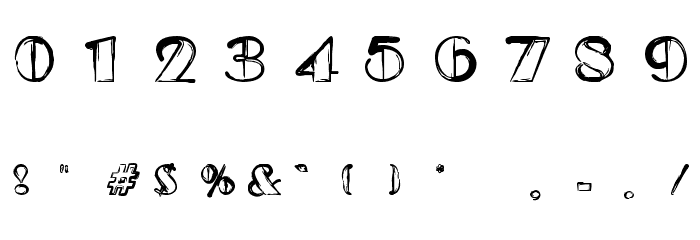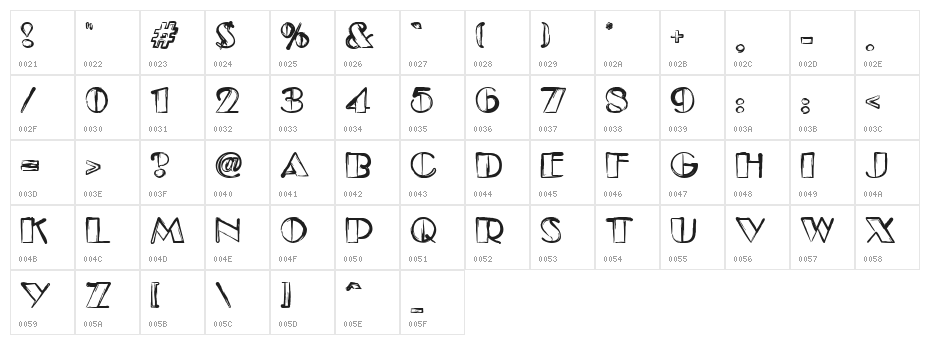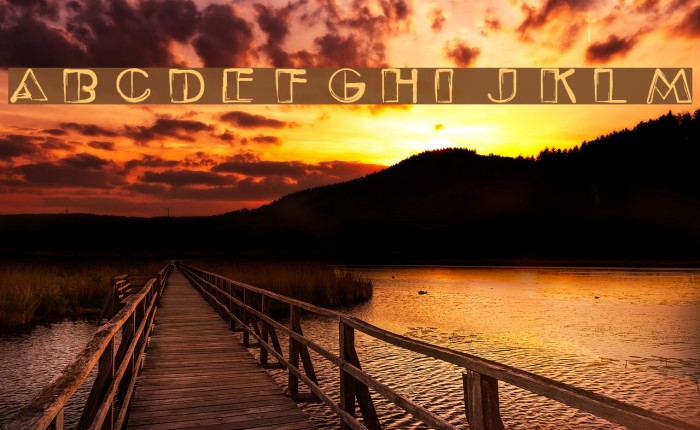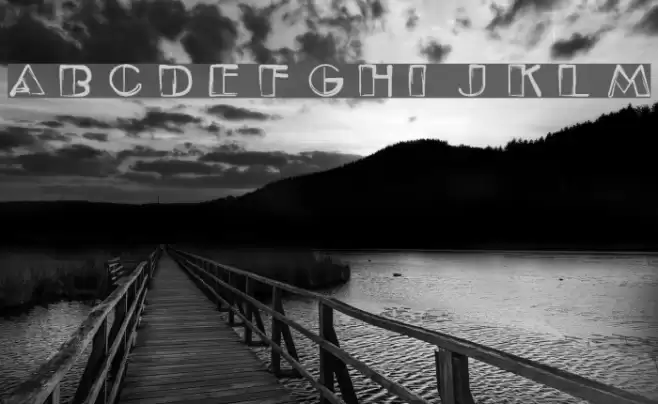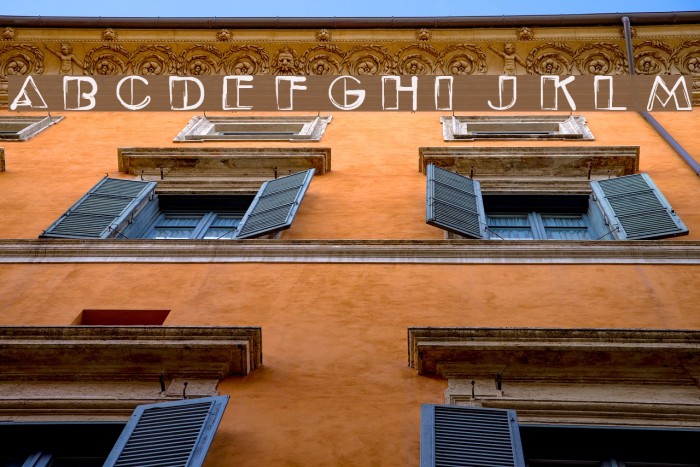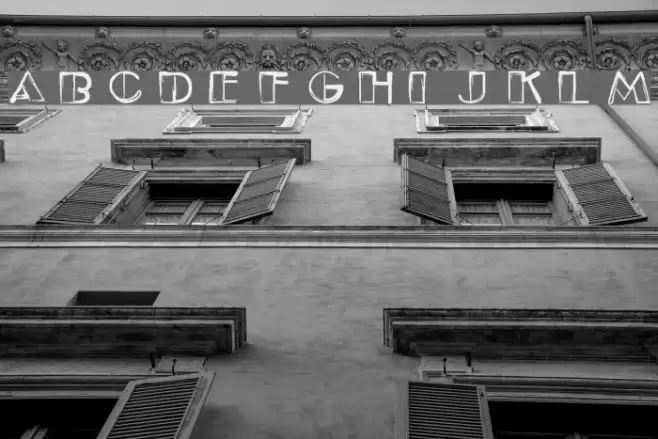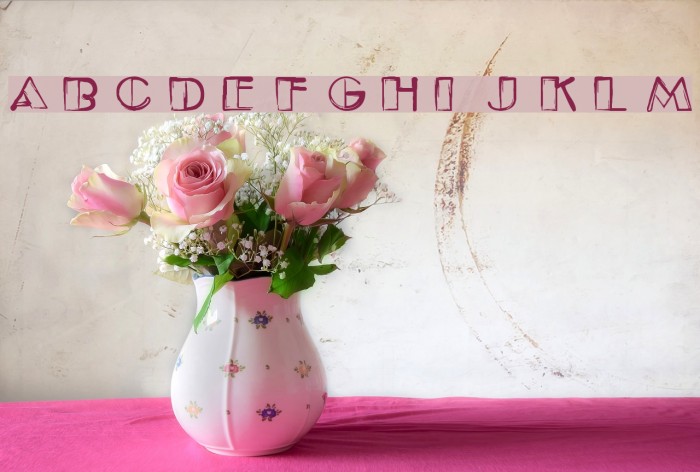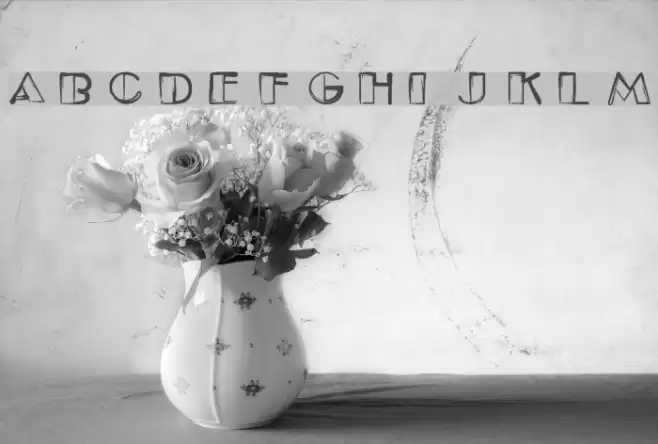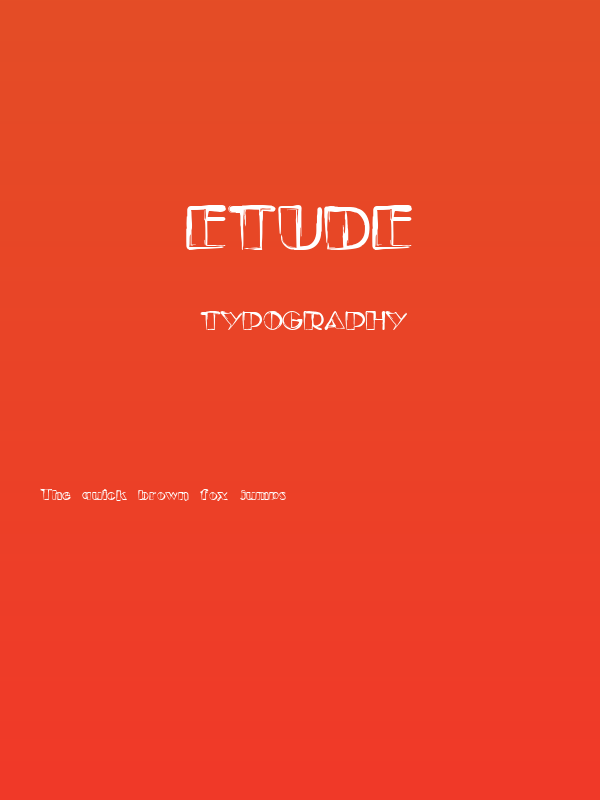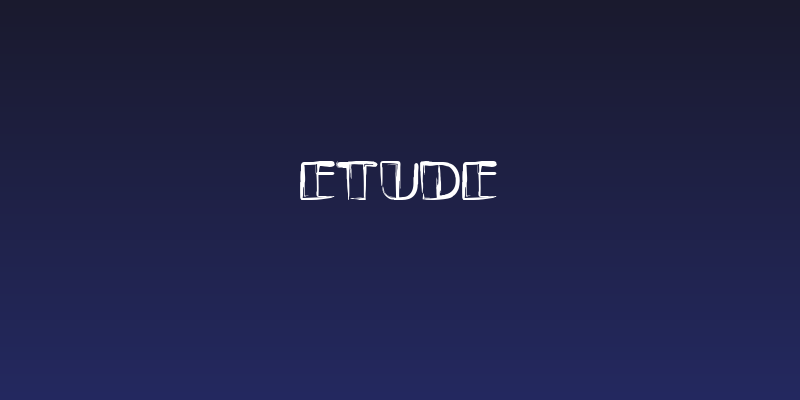
Etude Font
Etude Description
This font features a unique and artistic style, characterized by its hand-drawn, sketch-like appearance. Each character is outlined with a rough, uneven stroke, giving it a playful and informal look. The letters are bold and have a slightly irregular shape, adding to the whimsical feel. The font includes both uppercase and lowercase letters, numerals, and a variety of special characters. Its distinct style makes it stand out, perfect for creative projects that require a touch of individuality and flair.
| Overall Style | Artistic, Whimsical |
| Proposed Projects | Ideal for children's books, creative posters, artistic branding, and unique invitations. |